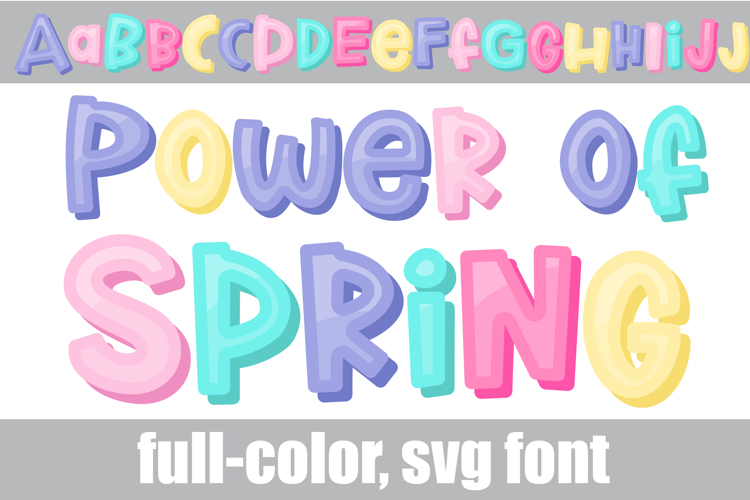
Power of Spring Color Font
This full-color, pastel-colored font features toon-like font style. There is an alt case of each letter with a different color combination.